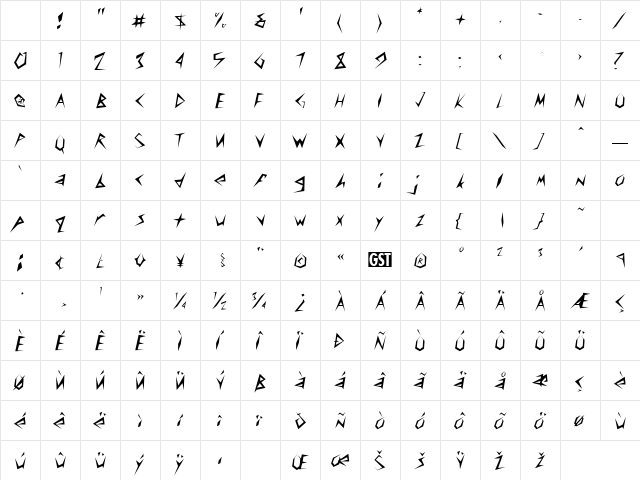
Stinger Light is a composed and adaptable typeface that performs quietly and consistently across a wide range of design contexts. Its slender proportions lend an understated elegance to any composition.
Pro Tip: Use Stinger Light in both headline and body roles to test its range before committing to a single application.